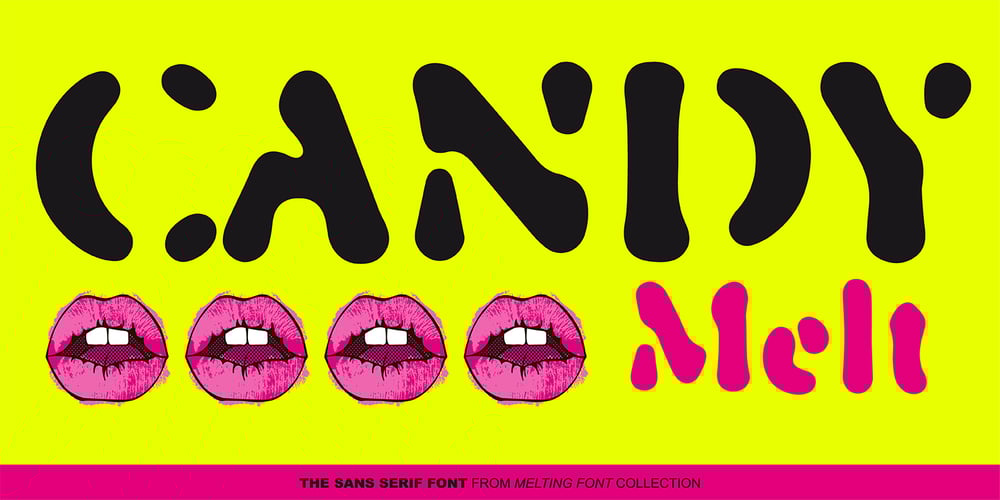
GS Candy Melt
GS Candy Melt font
GS Candy Melt Font Family was designed by Galina Bleikh, Lilia Chak and published by GalaStudio. GS Candy Melt contains 1 styles and family package options. Our intention was to create a font with rounded melted-like shapes, like sucking candy, to make it “tasty” and playful. The CANDY MELT font is rather bold. This feature lets the graphic designer play with the letters, filling them with a variety of textures and patterns. The CANDY MELT is ideal for children’ books titles, textbooks, notebooks, different brochures and advertising. We hope that GalaStudio fonts will add attractiveness and efficiency to your product. INCLUDED: GS_CandyMelt.otf GS_CandyMelt.ttf Numbers, additional glyphs & basic punctuation are included. PERFECT FOR: using in branding projects, children’ books titles, textbooks, notebooks, different brochures and advertising, homeware design, packaging design; magazines, posters and flyers titles; logos design, books design, fashion design, slogans etc. Multilingual support included for the languages based on Latin alphabet.